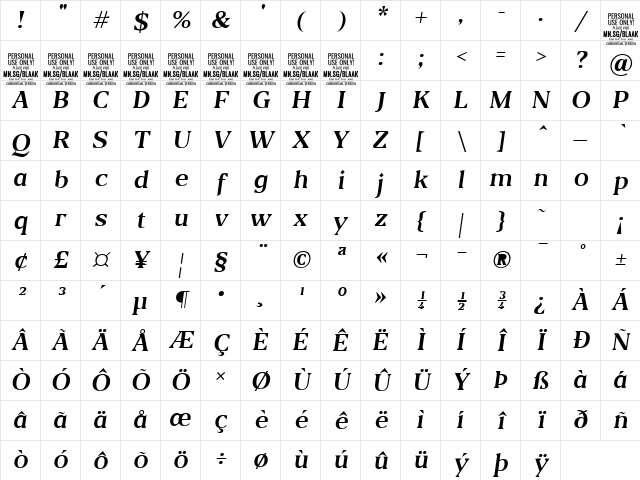
Blaak Regular PERSONAL USE Italic
Foundry: Mans Greback
Designer: Unidaas & Mans Greback
Year: 2019
Complete Blaak Regular PERSONAL USE Italic glyph index. Displaying only characters natively supported by Blaak Regular PERSONAL USE Italic font.
Design Context for Blaak Regular PERSONAL USE
Blaak Regular PERSONAL USE is a composed and adaptable typeface that performs quietly and consistently across a wide range of design contexts. The slanted form adds forward momentum and visual energy.
Pro Tip: Use Blaak Regular PERSONAL USE for emphasis, pull quotes, and subheadings where its slanted energy can add rhythm to the layout.
Who designed the Blaak Regular PERSONAL USE Italic font?